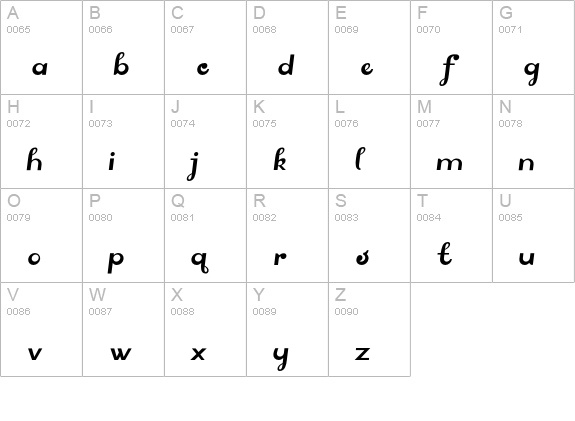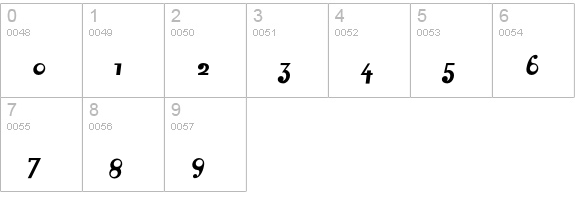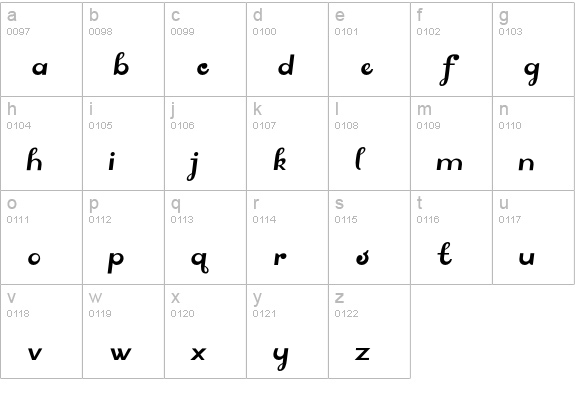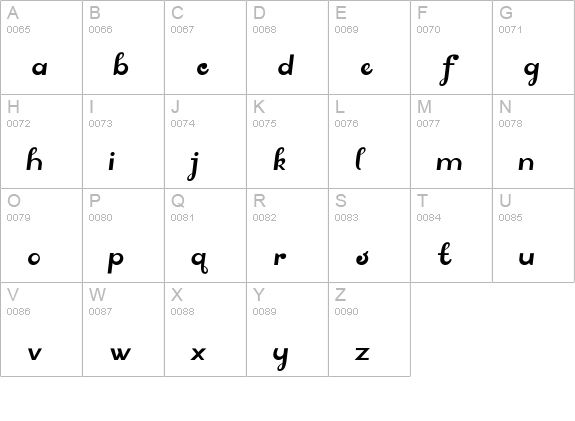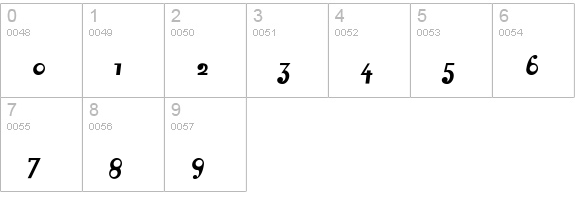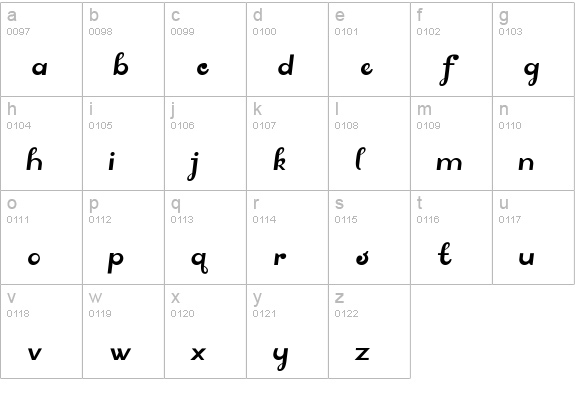
Introducing Pussy-Sloped font, a sleek and stylish typeface that exudes elegance and sophistication. With its delicate curves and graceful slant, this font is perfect for adding a touch of refinement to any design project. Whether you're creating a wedding invitation, a logo, or a brand identity, Pussy-Sloped font will elevate your work to the next level. Best of all, Pussy-Sloped font is available for free download at FontsMarket.com. Simply visit the website to access this gorgeous font and start using it in your projects today. Don't miss out on the opportunity to enhance your designs with the beauty and charm of Pussy-Sloped font. Download it now and let your creativity shine!